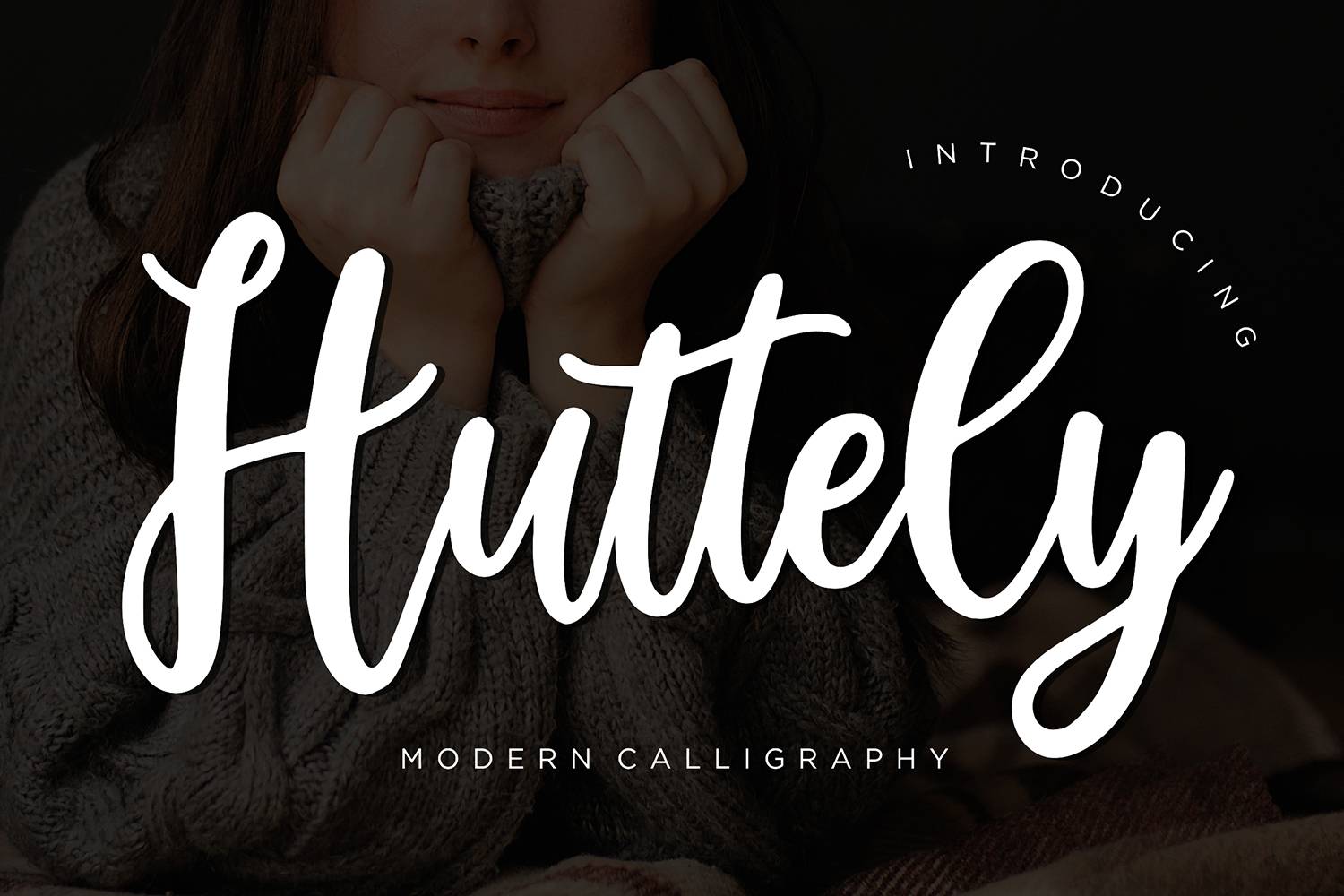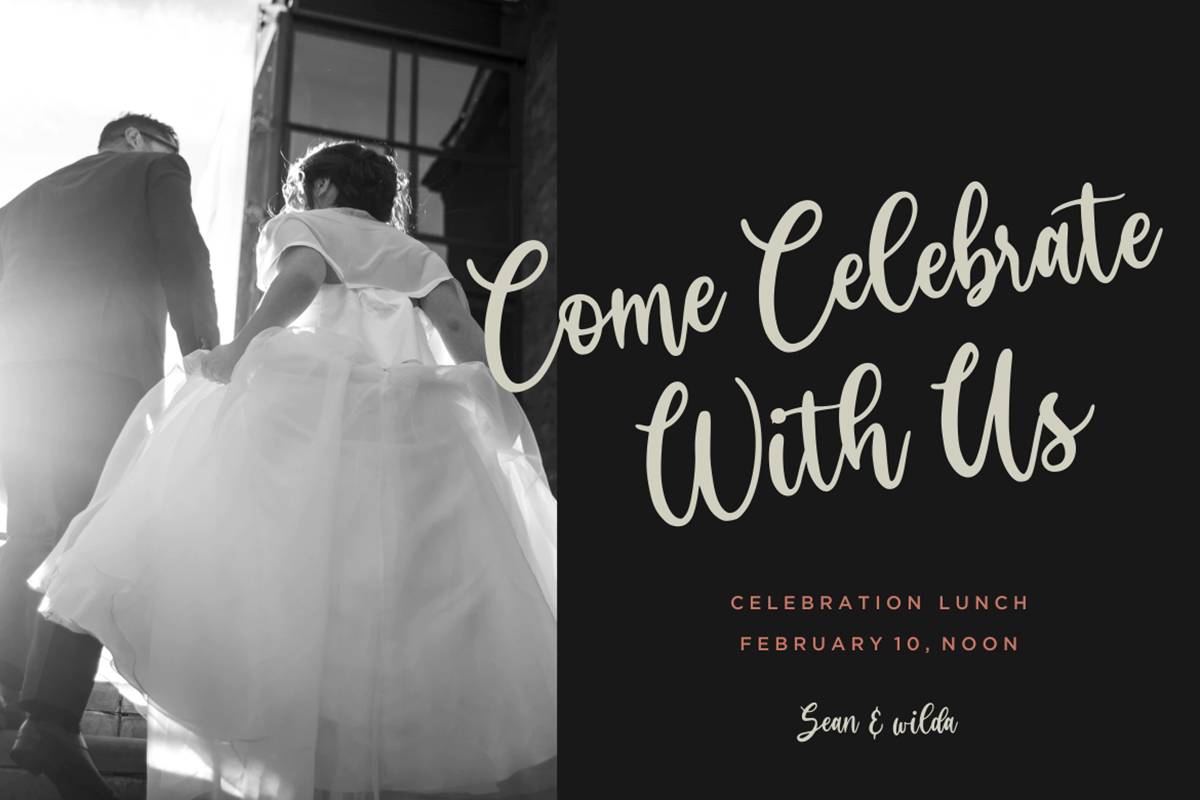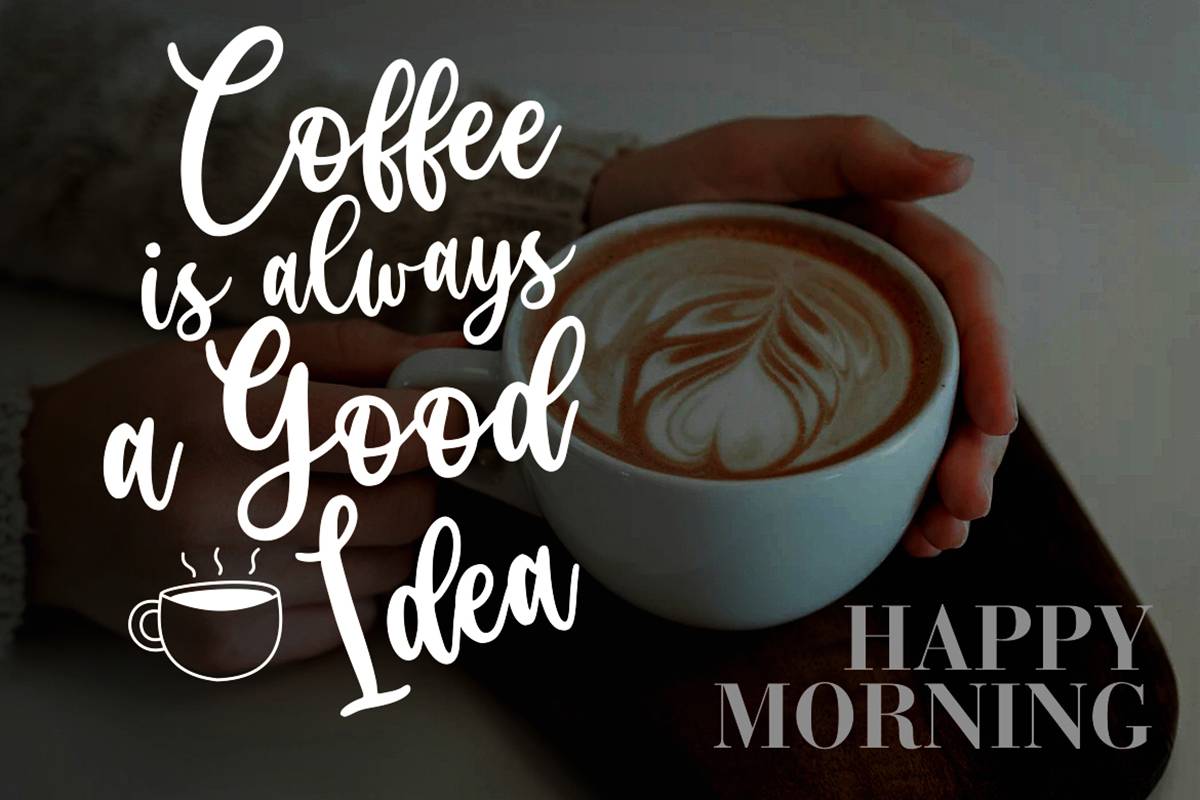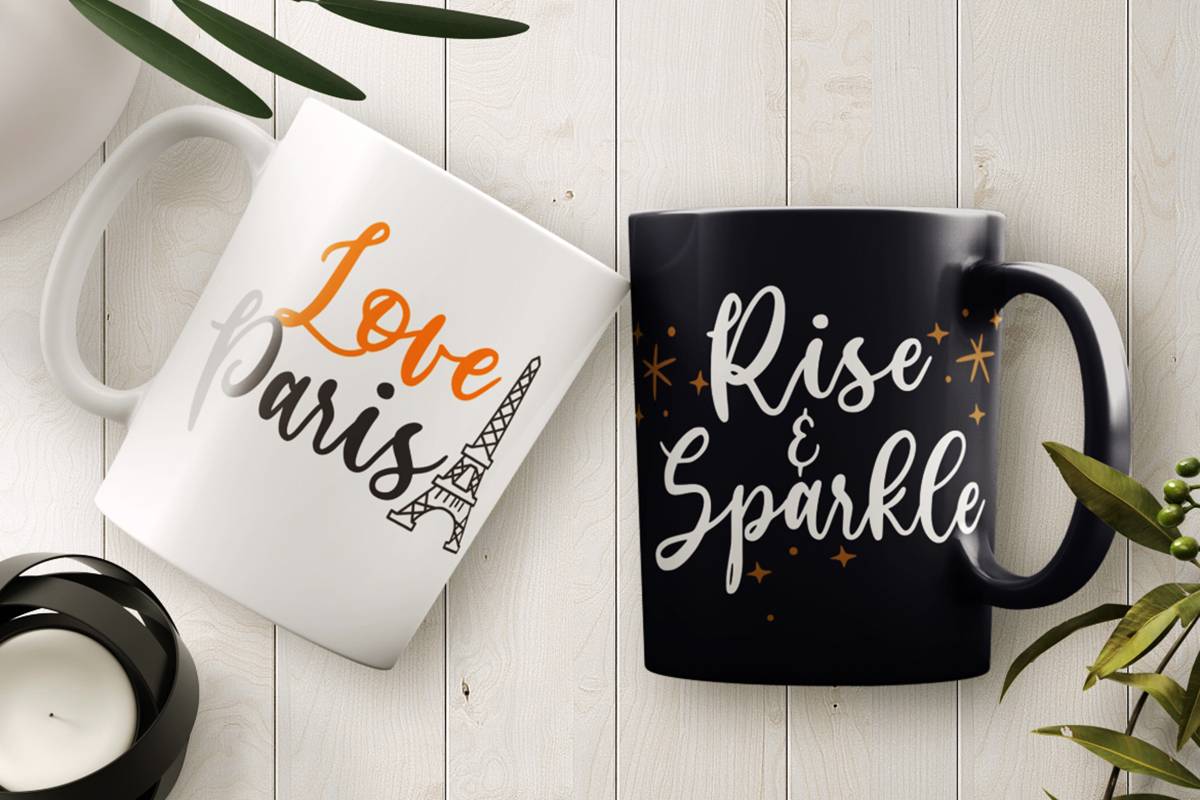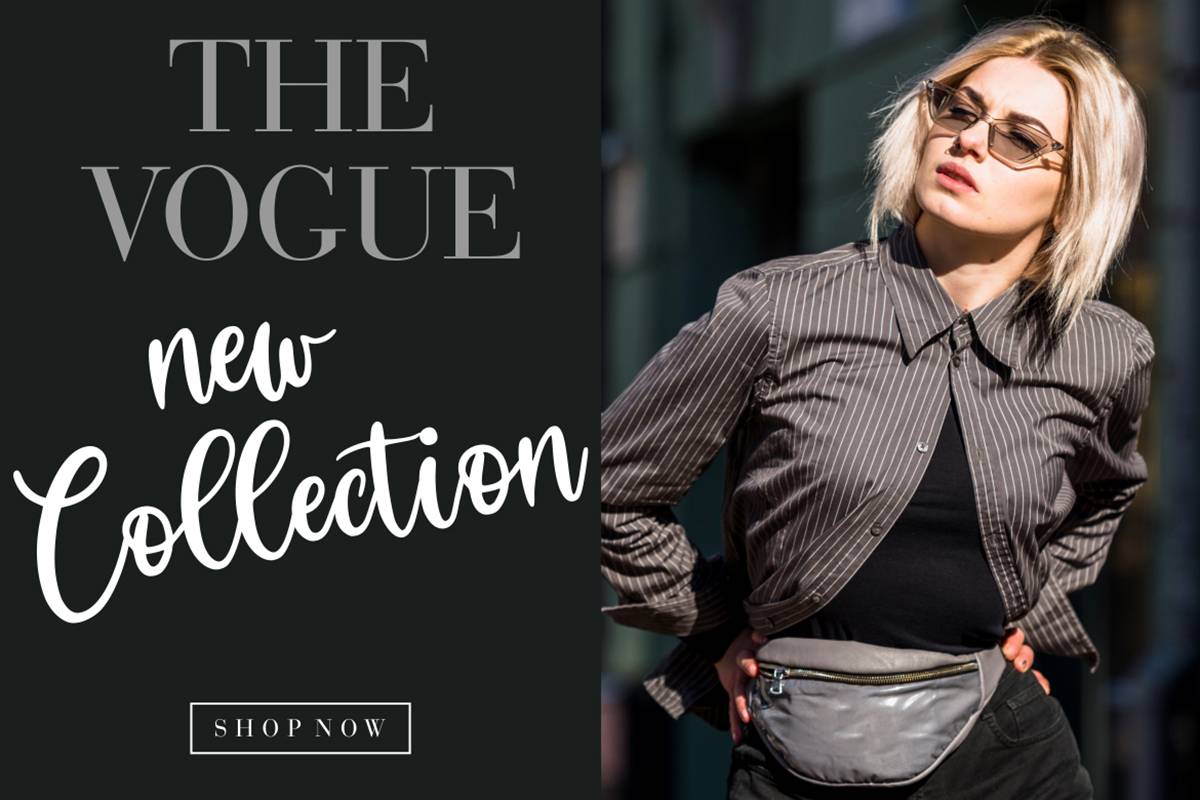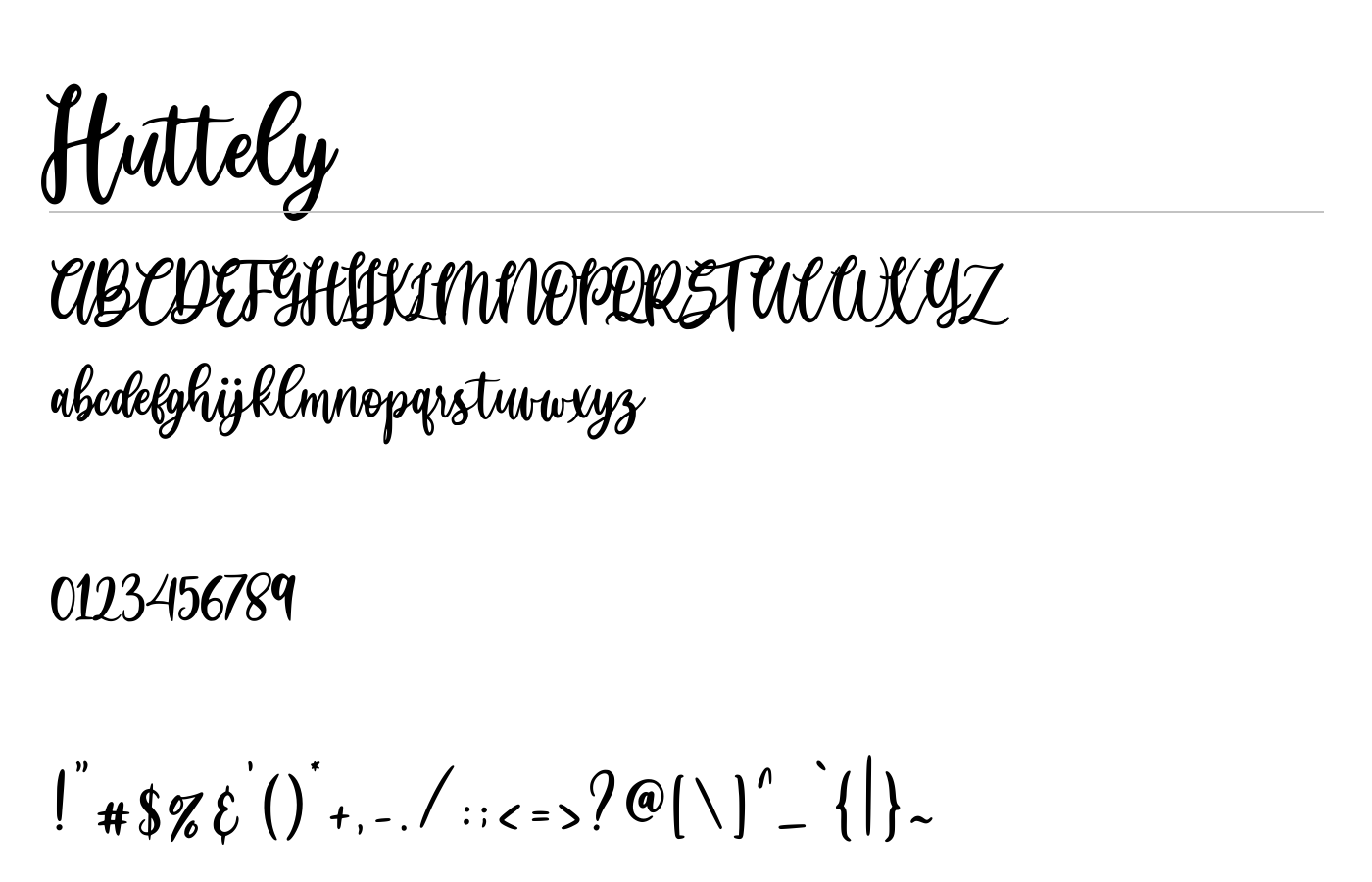
Huttely is a lively, handwritten script font with elegant, flowing strokes and a casual yet refined feel. Its moderately high x-height and consistent stroke weight make it highly readable while exuding personality, ideal for creative branding, invitations, and social media designs. This font works beautifully for projects seeking a warm, personal touch with a stylish, modern flair.
Huttely Font
About Huttely Font